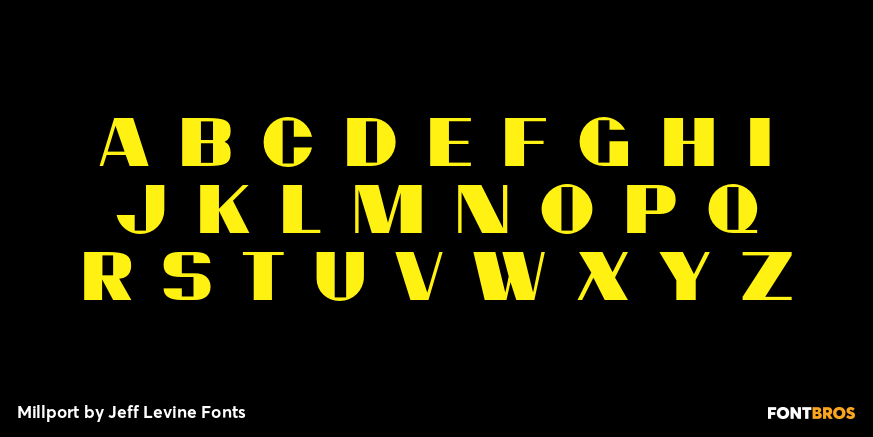
Millport
Millport JNL is another retro-design font with a look closer to hand-lettering than formal typesetting. Use it for headlines, titles, signs, posters and point-of-sale items. No matter what the application, Millport JNL looks clean and retains its nostalgic feel.